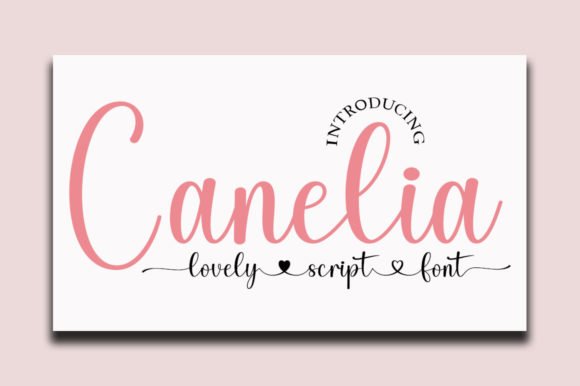
Unlock the Artistry of Canelia Font
As a designer, there’s nothing quite like the thrill of bringing a concept to life. It’s the moment when all the pieces fall into place, and your vision takes shape. For me, it’s often sparked by the perfect font – one that elevates the entire project and leaves a lasting impression. And that’s exactly what the Canelia Font does.
This chic, refined script font is the epitome of sophistication and elegance. Its stylish alternates and ligatures make it the perfect match for any project, from high-end fashion magazines to luxury brand advertising. The Canelia Font is PUA encoded, allowing designers to access all of the glyphs and swashes with ease, making it a valuable addition to any design arsenal.
- Unique Characteristics: A modern, elegant script font with a unique blend of traditional and contemporary styles, perfect for creating beautiful typography in various designs
Canelia Font Review
As a designer, I was excited to dive into the Canelia Font and see what it had to offer. Here’s my honest take.
- The Canelia Font has a unique, playful feel to it that’s perfect for capturing attention in a crowded design space.
- The font’s bold and italic styles are great for adding emphasis and creating visual interest.
- The font is highly legible, even at small sizes, making it a great choice for digital designs where space is limited.
- The font’s quirks and irregularities may not be suitable for all design applications, particularly those requiring a more traditional or corporate look.
- The font’s expressiveness can sometimes feel overwhelming or chaotic, making it difficult to balance with other design elements.
The Canelia Font is a bold and eye-catching choice that’s perfect for designers looking to add some personality to their projects. While it may not be suitable for all design applications, it’s a great option for those seeking a unique and expressive font that can help make their designs stand out.
Getting the Most Out of Canelia Font
To get the most out of Canelia Font, consider the following tips:
- Use it for titles and headings to add a touch of elegance.
- Pair it with bold or italic fonts to create a striking contrast.
Canelia Font is commonly used for:
Alternatives to Canelia Font
Exploring the Unique Aesthetics of Canelia Font
A travel brochure that transports users to a world of wonder, using the Canelia Font to add a touch of magic to the layout.
How to use Canelia Font:
- Use the Canelia Font as the primary font for headings, highlighting important information about destinations and activities.
- Combine the Canelia Font with bold fonts for emphasis, creating a visually appealing contrast.
- Pair the Canelia Font with vibrant, colorful illustrations to evoke a sense of adventure and curiosity.